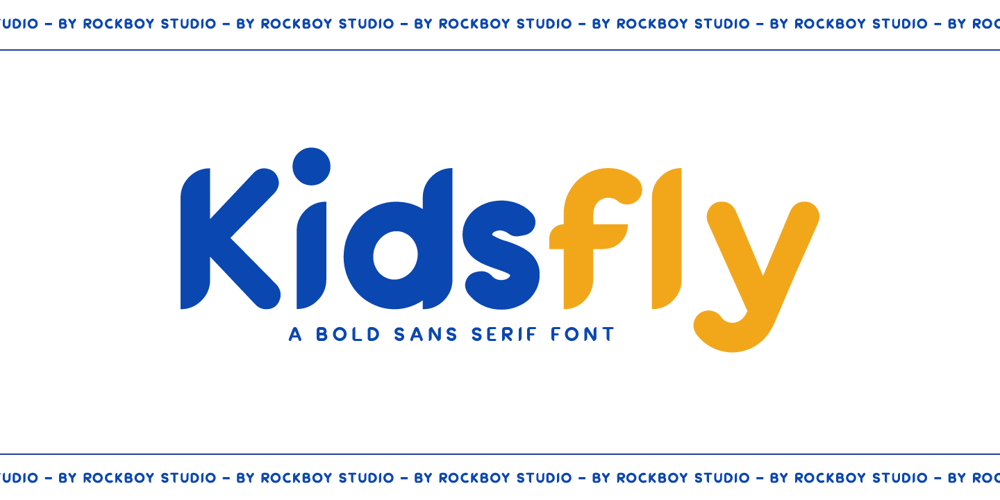
Kidsfly Font Family was designed by Hayinah and published by Rockboys Studio. Kidsfly contains 1 styles and family package options. The Kidsfly font is a playful and energetic typeface characterized by bold, sans-serif letters that are rounded and friendly in appearance. The letters have a uniform thickness with a slight softening of edges, making the font approachable and child-friendly. The overall design is modern, with clean lines and a slight touch of whimsy, making it suitable for children’s books, playful branding, or educational materials. The font’s weight gives it a strong presence, while its rounded corners and smooth curves maintain a sense of fun and accessibility.